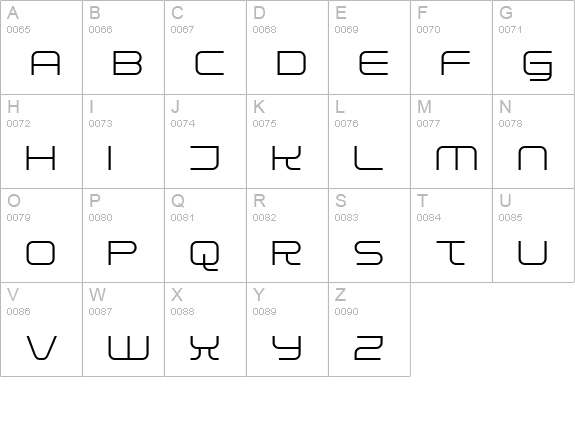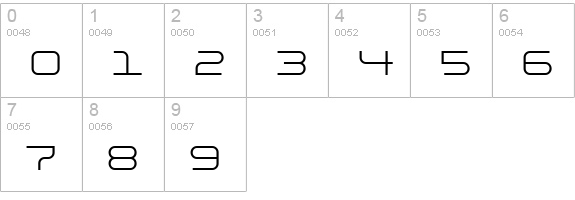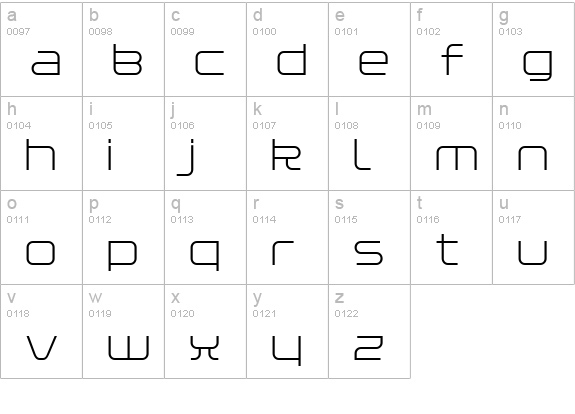
Installer Font Details
Installer font is a remarkable typeface that seamlessly combines modern design elements with classic elegance. Its clean lines and geometric shapes make it perfect for a wide range of projects, from logo designs to website headers and everything in between. With its sleek and sophisticated appearance, Installer font instantly adds a touch of professionalism to any design. One of the best things about Installer font is that it is completely free. Yes, you read that right - this incredible font is available to download at absolutely no cost. It's a rare gem in the world of typography, where high-quality fonts often come with a hefty price tag. Thanks to its generous availability, Installer font can be accessed by anyone looking to enhance their creative endeavors. Whether you're a graphic designer, web developer, or simply an individual with a passion for typography, this font is a valuable addition to your collection. To get your hands on Installer font, simply head over to FontsMarket.com. This user-friendly website offers a vast library of fonts, including Installer, all available for free download. FontsMarket.com ensures a seamless experience, making it easy for you to browse, choose, and download the fonts that best suit your needs. Experience the power and versatility of Installer font today. Elevate your designs to new heights with this exceptional typeface, and enjoy the freedom and creativity that comes with having access to such a high-quality font - all without spending a dime. Download Installer font now and let your creativity soar.